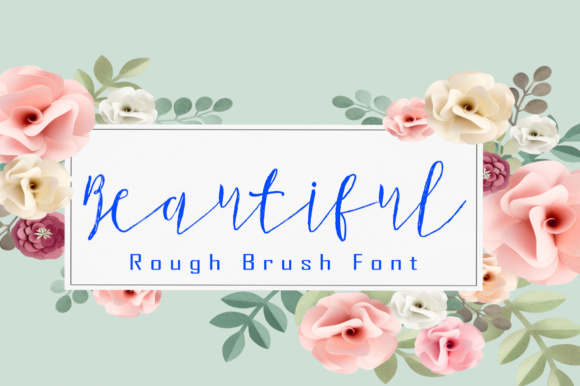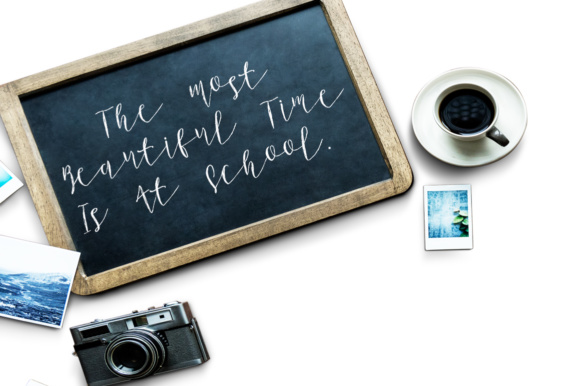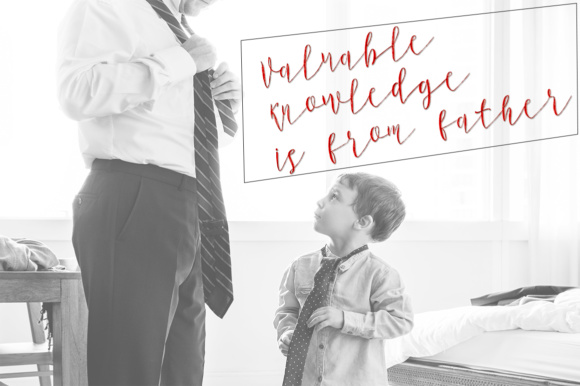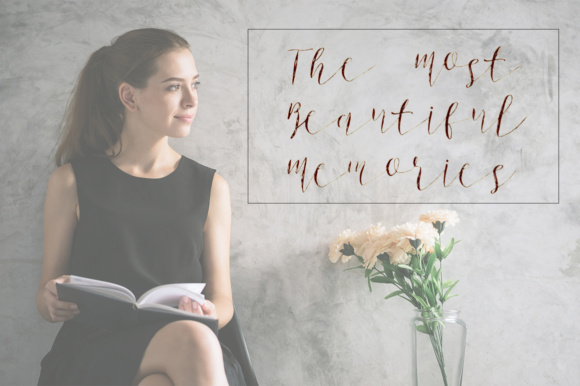
HomeScript FontsChenthia Font Script Fonts Chenthia Font FacebookXPinterestWhatsApp Chenthia Font Poster 2 Chenthia Font Poster 3 Chenthia Font Poster 4 Chenthia Font Poster 5 About Chenthia Font The Chenthia is a new, modern brush font. It has unique forms of calligraphy and a natural writing style. DOWNLOAD NOW People also explored Christmas Ball Font Innocent Script Font Berthalia Font Cattalleya Font Range Hello Yellow Font Neon Pink V-Neck T-Shirt Mockup Photo Minimalist Font Beauty Cosneta Font 316 0 TagsChenthia Font Previous articleBellynitha FontNext articleChomolatte Font LEAVE A REPLY Cancel reply Comment: Please enter your comment! Name:* Please enter your name here Email:* You have entered an incorrect email address! Please enter your email address here Website: Save my name, email, and website in this browser for the next time I comment. Personal Use Free Merak Personal Use Free Read more about this font Engebrechtre Personal Use Free Read more about this font Theobald Personal Use Free Read more about this font Potato Pancakes Personal Use Free Read more about this font BLOG Best Fonts for YouTube Videos: Make Your Thumbnails Stand Out Best Fonts for YouTube Videos: Make Your Thumbnails Stand Out Choosing the right font can make a massive difference in how your YouTube videos perform.... Elegant Wedding Invitation Fonts – Handwritten & Script Fonts Exploring Font Trends 5 Fonts That Will Dominate Design Trends in 2026